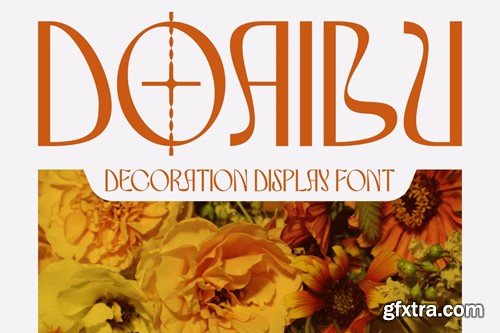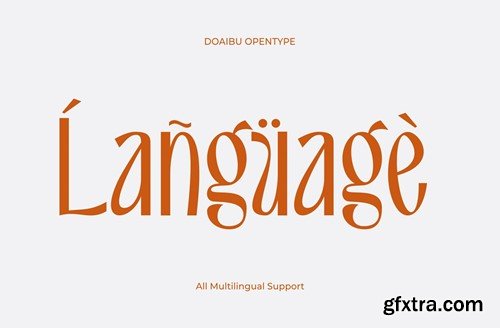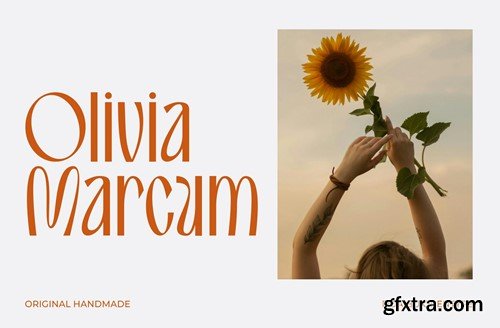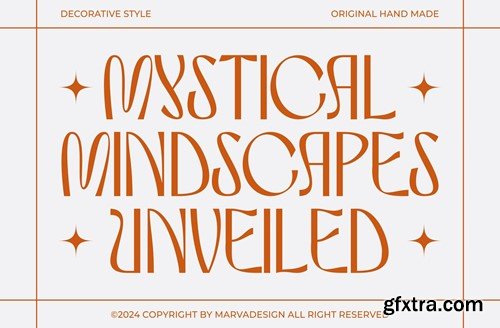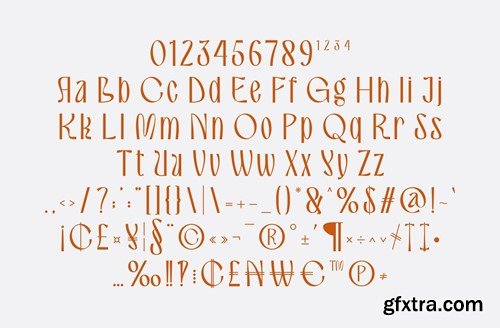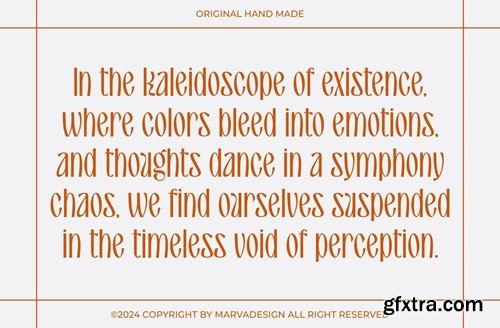
Doaibu - Psychedelic Font
Doaibu is a highly styled and elegant decorative sans serif font that is a stunning and captivating work of typographic art. Each character looks like a hand-carved masterpiece, with fine, well-proportioned details that add a touch of flair. The lines are straight and firm, creating an impression of perfection and luxury. availlable